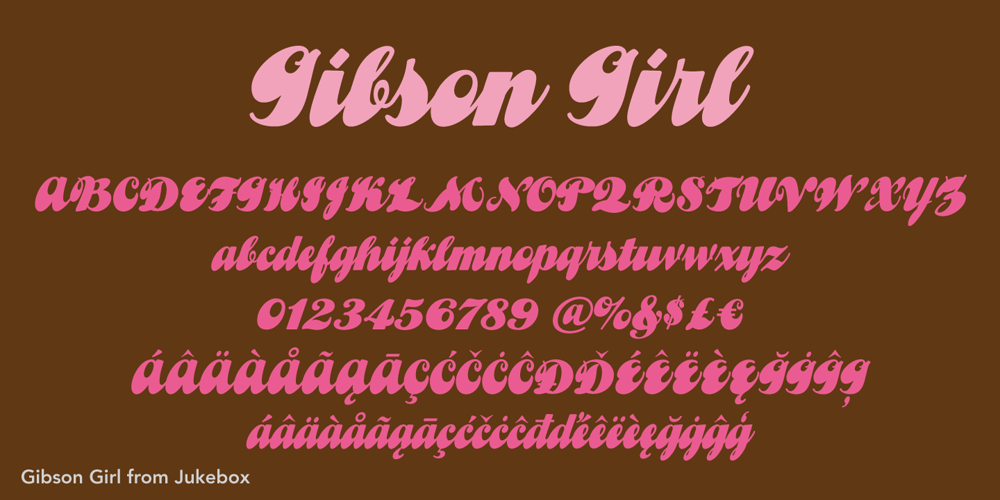
Gibson Girl JF
Gibson Girl JF font
Gibson Girl JF Font Family was designed by Jason Anthony Walcott and published by Jukebox Collection. Gibson Girl JF contains 1 styles and family package options. Based on a hand lettered sample from the early 20th Century, Gibson Girl is a heavy script font with a vintage flair. During the end of the 19th Century, the “Gibson Girl” created by illustrator Charles Gibson, was considered the ideal of feminine beauty and poise in that time period. The term has become associated with the Gilded Age in America. The design of the Gibson Girl font reflects both femininity and self confidence.